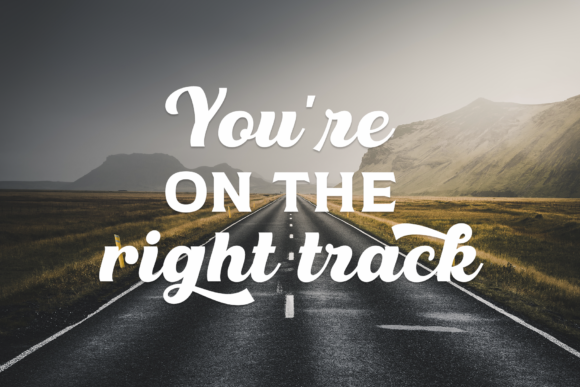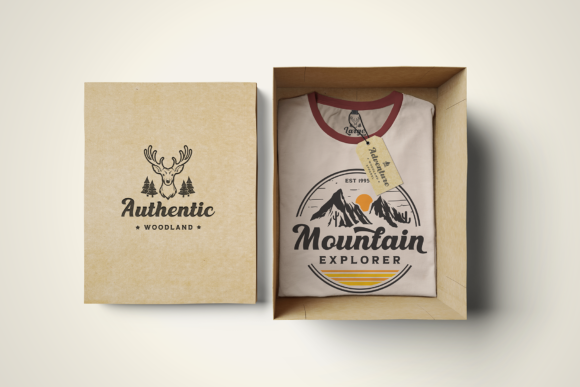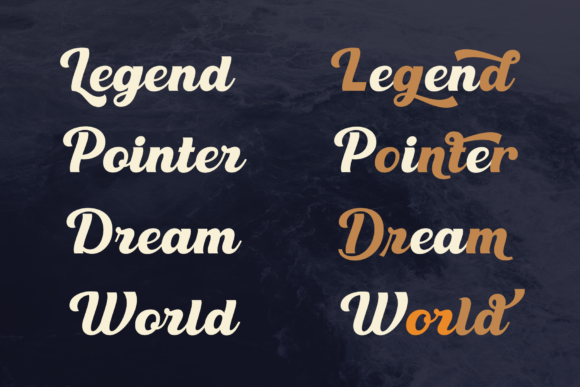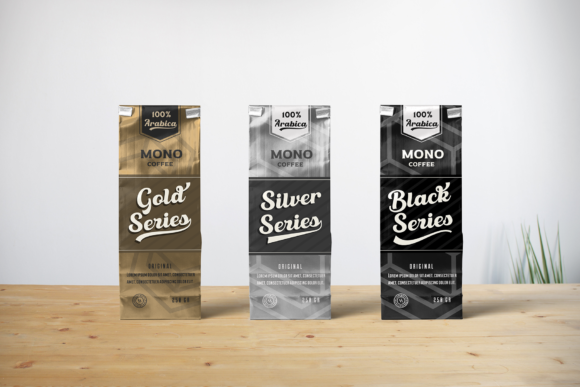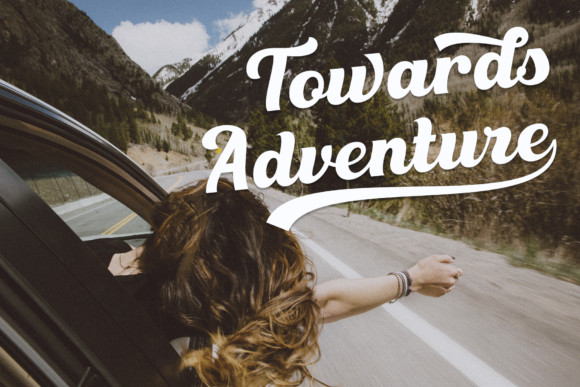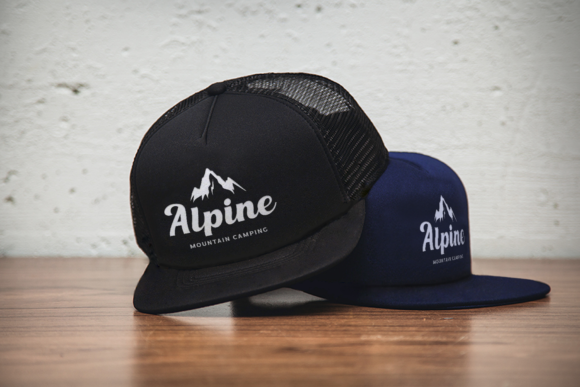
The Blauer Font: A Modern Script Font to Fall in Love With
I’ll never forget the moment I stumbled upon the Blauer font. I was working on a project for a client who wanted a modern, elegant script font that would make their brand stand out. As I scrolled through font after font, nothing seemed quite right – until I saw Blauer. Its unique blend of classic script and modern flair caught my eye, and I knew I had found the perfect fit. In this article, I’ll share my love for the Blauer font, its features, and how to make the most of it in your designs.
An Honest Review of Blauer Font
What I Love About Blauer Font
• ✨ Unique and versatile: Blauer font is a true standout in the world of script fonts. Its modern look and feel make it perfect for a wide range of design projects.
• ✅ Elegant and sophisticated: The font’s classic script roots give it an air of sophistication, making it ideal for high-end brands or luxury products.
• 💫 Highly legible: Despite its elegant nature, Blauer font is remarkably easy to read, even at smaller sizes.
While Blauer font is an excellent choice for many design projects, it’s not without its quirks. Here are a few things to keep in mind:
• 🤔 Limited use of all-caps: While Blauer font does include all-caps letters, they may not be as visually appealing as the lowercase letters.
• ⚠️ Requires attention to kerning: As with any script font, kerning can be a bit tricky with Blauer. Make sure to adjust the kerning to achieve the best results.
The Story Behind Blauer Font
Blauer font was designed with the goal of creating a modern script font that’s both elegant and versatile. The designer, inspired by the beauty of handwritten scripts, aimed to create a font that would be perfect for a wide range of design projects, from luxury brands to creative hobbies.
Q: What is the Blauer font best used for?
A: The Blauer font is perfect for a wide range of design projects, including luxury brands, high-end products, and creative hobbies.
Q: Is Blauer font suitable for body text?
A: While Blauer font is highly legible, it’s best suited for headlines and titles. For body text, consider using a more traditional serif or sans-serif font.